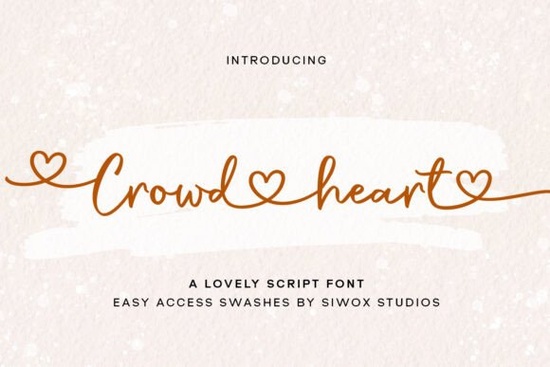
If you’ve been searching for a script font that feels personal, elegant, and just a little bit unexpected, Crowd Heart Script Font might be exactly what your next project needs. It’s handwritten with a light, airy touch the kind of typeface that doesn’t shout for attention but still leaves a lasting impression. Whether you’re designing wedding invitations, branding materials, or printable art for Etsy, this font adds a quiet luxury that’s hard to ignore.
What makes it especially handy is that it’s PUA encoded. That means all those beautiful alternate characters, swashes, and ligatures? You can access them without jumping through hoops in design software. Just open your glyphs panel in Illustrator, Photoshop, or even Canva (with Pro), and start playing around. No extra plugins or font managers needed.
Who should use Crowd Heart Script?
This font works beautifully for:
- Small business owners creating logos, packaging, or social media graphics that need a human, upscale feel.
- Print-on-demand sellers looking for something fresh for mugs, totes, or T-shirts especially quotes, affirmations, or romantic phrases.
- Crafters and DIYers making vinyl decals, greeting cards, or scrapbook layouts.
- Designers who want an easy-to-style script that pairs well with clean sans-serifs or vintage serifs.
It’s not overly ornate, so it stays readable even at smaller sizes. And because it’s got that subtle bounce and variation, it never feels robotic perfect if you’re trying to avoid that “font library” look.
How does it compare to other handwritten scripts?
If you’ve browsed Creative Fabrica’s script collection before, you might already know favorites like Father Farmhouse, which leans rustic and cozy, or Wathelmina, which has more formal calligraphy bones. Crowd Heart sits somewhere in between soft enough for feminine designs but neutral enough to work on unisex products too.
For contrast, check out Hangberd America Duo if you need bold, brush-style energy, or Strawberry Shortcake for playful, dessert-themed whimsy. And if you love ocean-inspired textures, Salty Ocean brings in wave-like strokes and beachy charm. Each has its place Crowd Heart is your go-to when you want elegance without pretense.
What kinds of projects does it shine in?
Here are a few real-world uses where this font really stands out:
- Wedding suites invitations, menus, place cards. Its delicate flow complements floral motifs and minimalist layouts alike.
- Branding for boutiques or cafes think logo wordmarks, chalkboard signs, or product labels.
- Wall art and quote prints especially paired with serif fonts for contrast. Try a short phrase like “gather here” or “slow mornings” in Crowd Heart over a muted background.
- Product packaging soap labels, candle jars, tea boxes. The lightness reads as premium without being stiff.
One thing to note: because it’s so light, avoid using it on busy backgrounds or at very small sizes unless you bump up the letter spacing slightly. A little breathing room helps those delicate strokes stay clear.
Any tips for styling it?
Absolutely. Here’s how to get the most from it:
- Pair it with a simple sans-serif. Fonts like Montserrat, Lato, or even Arial Neue let Crowd Heart take center stage without visual competition.
- Use ligatures and alternates. Open your glyph panel and swap out default letters for the fancier versions especially at the start or end of words. It instantly adds polish.
- Try all-caps sparingly. This font was designed for lowercase flow. All-caps can feel cramped unless you increase tracking significantly.
- Add subtle texture. A faint paper grain or watercolor wash behind your text enhances the handmade vibe.
Is it worth adding to your font library?
If you regularly create designs that benefit from a personal, graceful touch yes. It’s not a one-trick pony. The PUA encoding means you’re not locked into basic characters, and the style is versatile enough to stretch across seasons and audiences. Plus, at Creative Fabrica’s usual pricing (especially with their subscription), it’s a low-risk addition with high creative payoff.
Start small try it on a quote graphic or mock label first. You’ll quickly see whether it fits your style. And if you love it? It’ll become one of those fonts you reach for again and again, quietly elevating everything it touches.